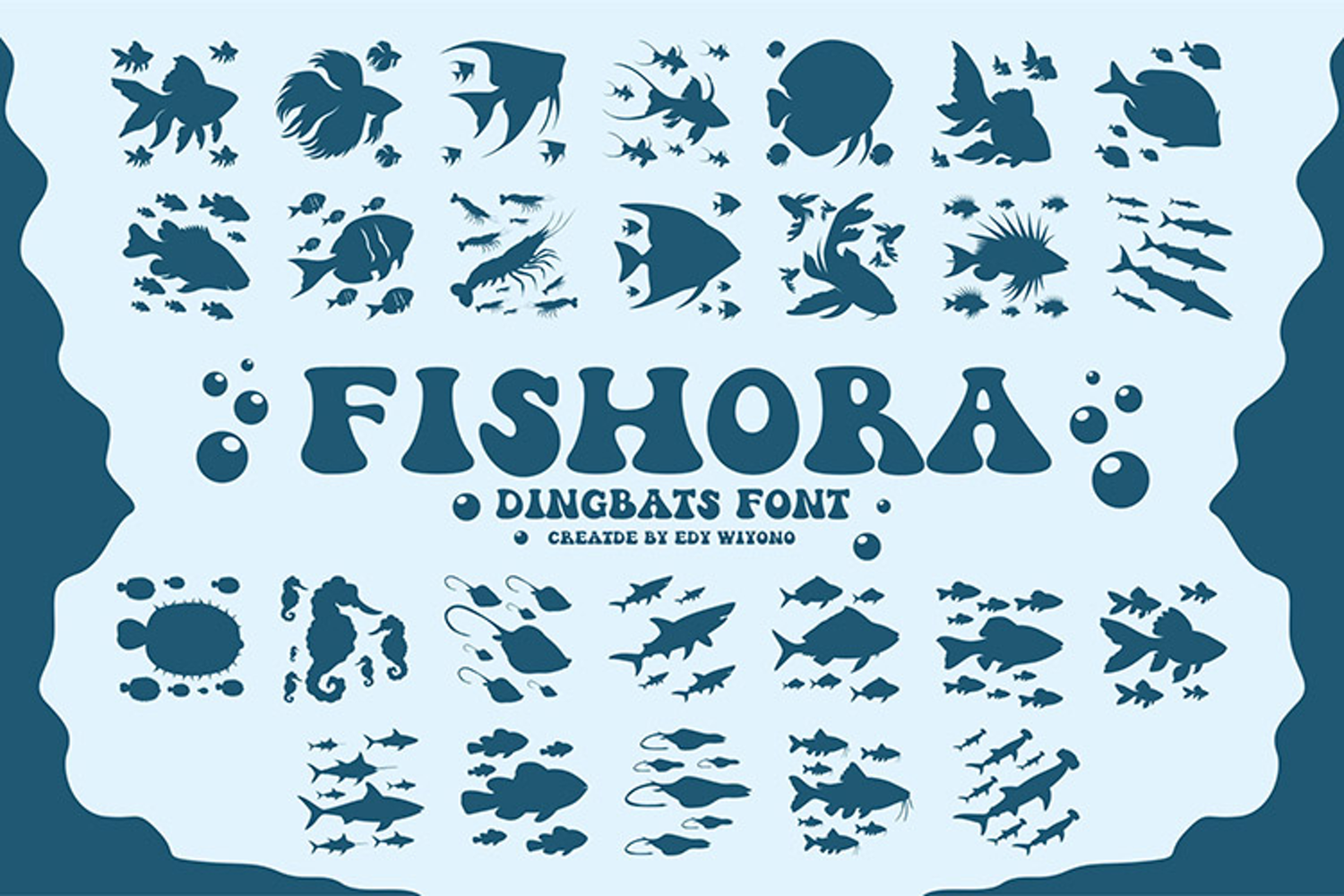
Fishora Dingbats Font
Fishora
Fishora font is inspired by the beauty and diversity of the underwater world, reflecting the character of sea fish, freshwater fish, and shrimp. Its letterforms feel organic, fluid, and dynamic, resembling the movement of fins, flowing water, and the natural textures of aquatic life.
This font combines a bold, fresh, and playful impression, making it ideal for marine-themed designs such as seafood logos, fish restaurants, fisheries brands, seafood packaging, posters, illustrations, and creative digital content. **FISHORA** is designed to stand out and remain easily recognizable, delivering a unique visual identity that feels lively, natural, and full of aquatic character.